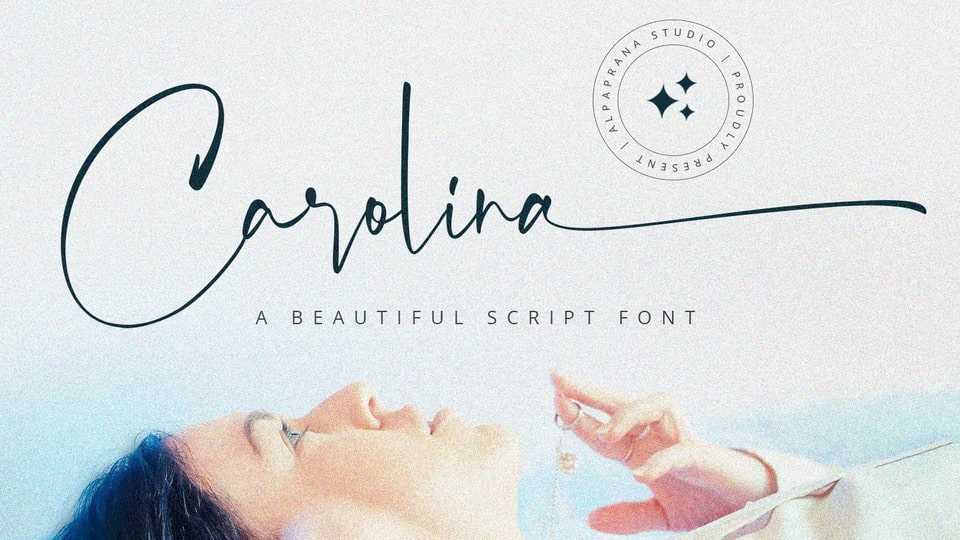
Download Carolina font, a refined signature style script typeface with an authentic and casual feel. Carolina will be perfectly used for branding, logotype, clothing, poster, magazine, packaging, posters, photography, special events and other design project.